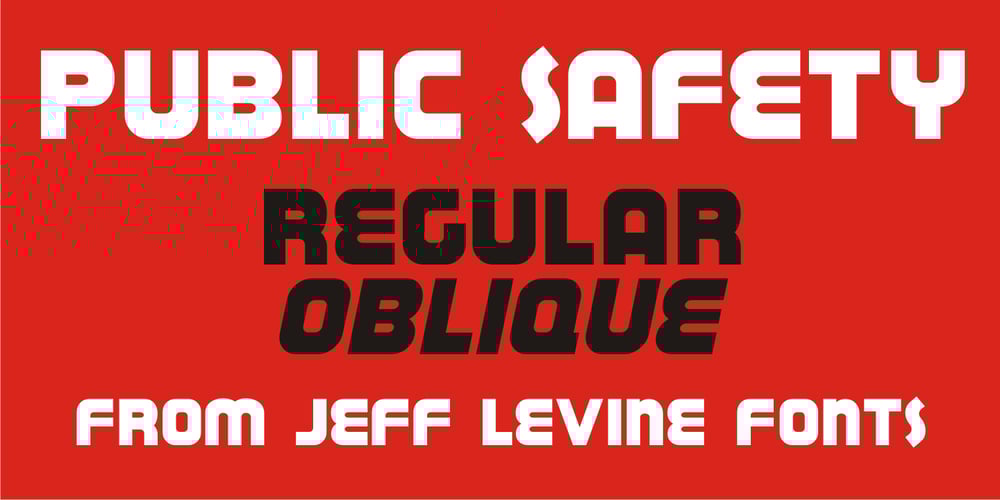
Public Safety JNL Font Family was designed by Jeff Levine and published by Jeff Levine. Public Safety JNL contains 2 styles and family package options. Public Safety JNL was inspired by a 1940s-era health poster issued through the WPA (Works Progress Administration). The font’s bold, blockish sans lettering commands attention and has been made available in both regular and oblique versions.